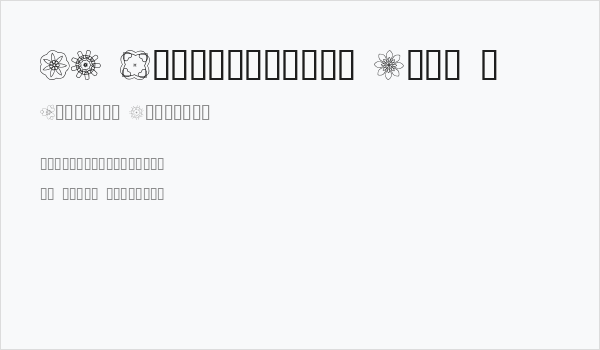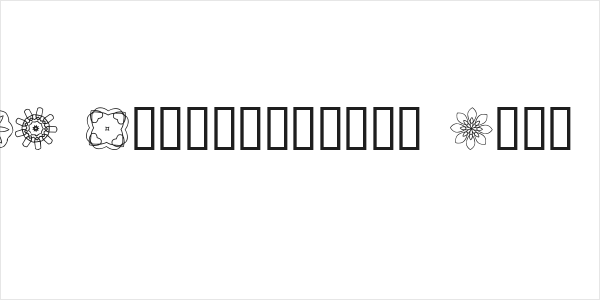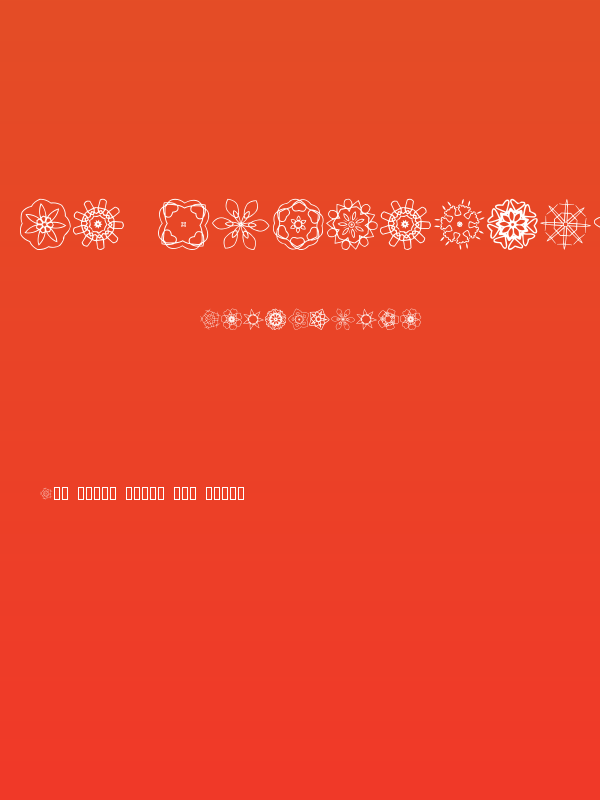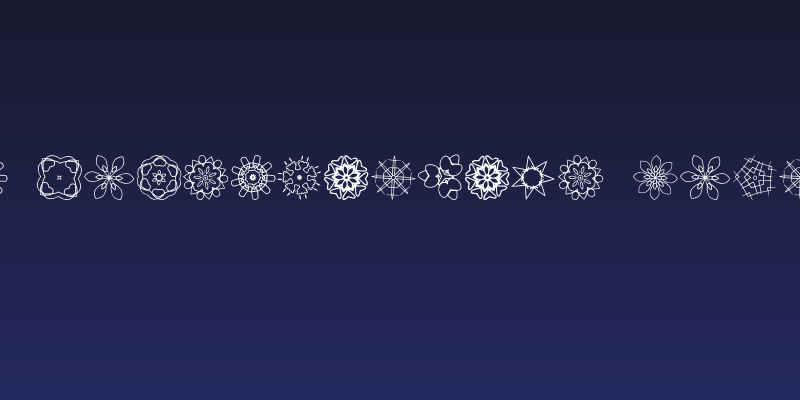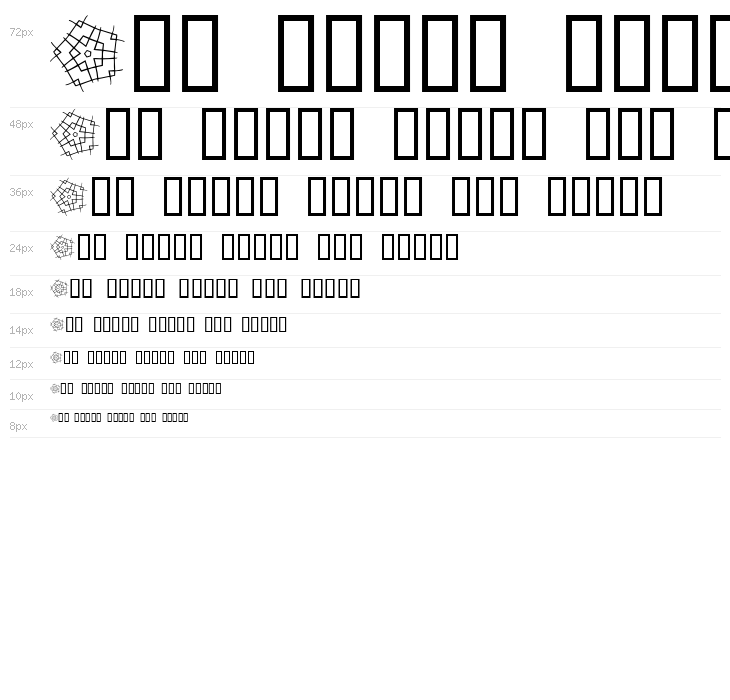
JI Kaleidoscope Bats 3 Font
JI Kaleidoscope Bats 3 Description
This is not a valid font. The image contains decorative symbols and shapes that resemble kaleidoscope patterns rather than a traditional alphabet or numerical characters. These intricate designs are more suited for ornamental purposes rather than textual representation.
| Use Case | Decorative elements, Art projects |
| Proposed Projects | These designs could be used for decorative borders, art projects, or as elements in graphic design work. |